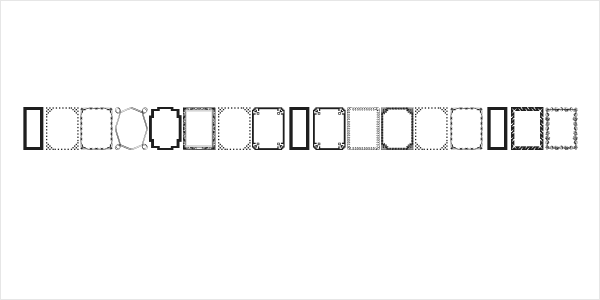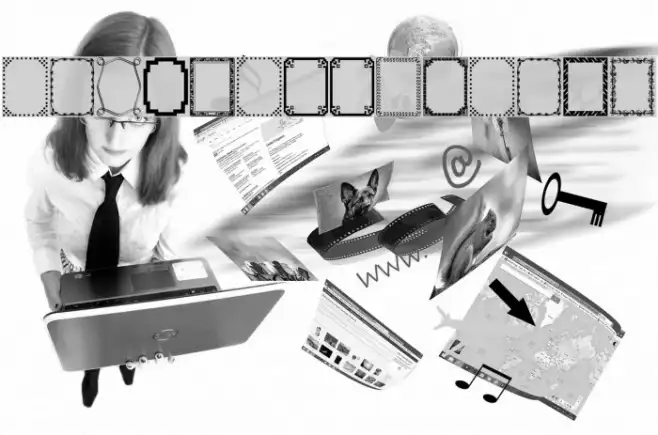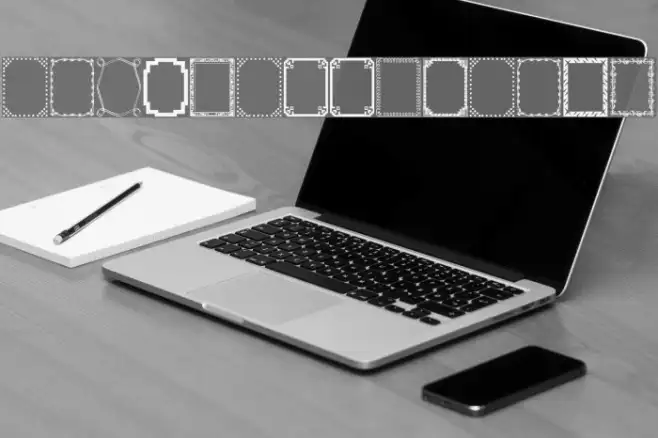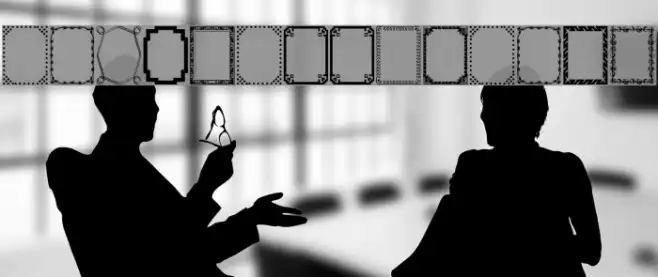
DesignerFramesTwo Font
DesignerFramesTwo Description
A decorative collection of rectangular frame designs, featuring a variety of borders including solid, dashed, dotted, ornate, and playful styles. Each character is represented by a unique frame, making this set suitable for creative and ornamental uses.
| Overall Style | Decorative, Playful, Ornamental |
| Use Case | Borders, Frames, Decorative accents |
| Proposed Projects | Invitations, scrapbooking, certificates, posters, digital art, decorative labels. |